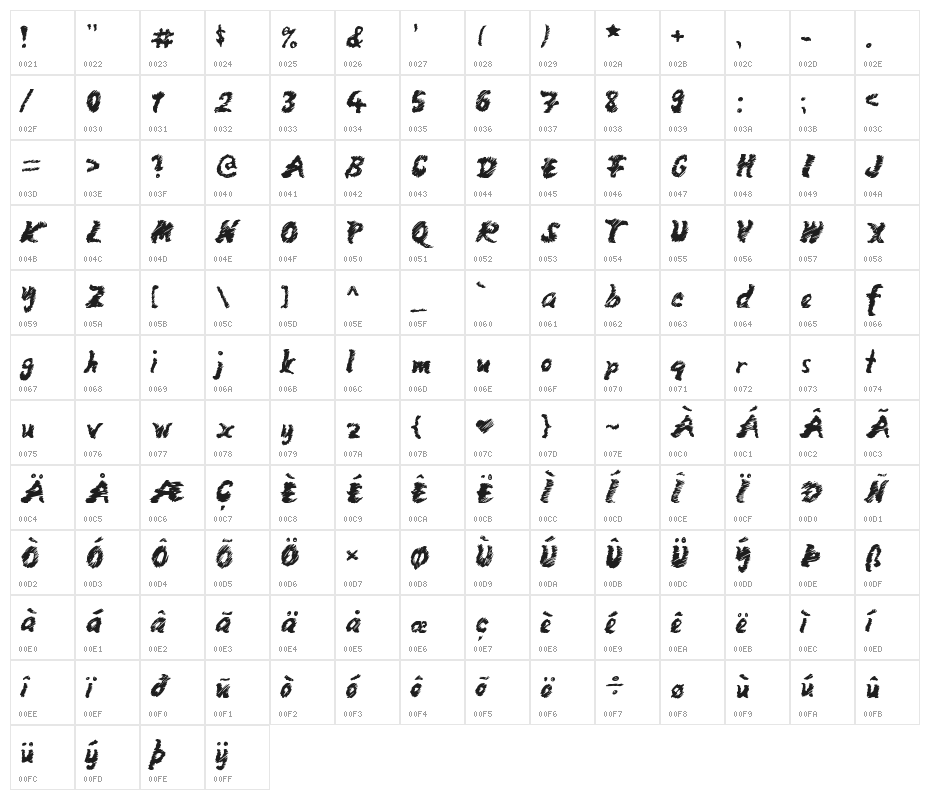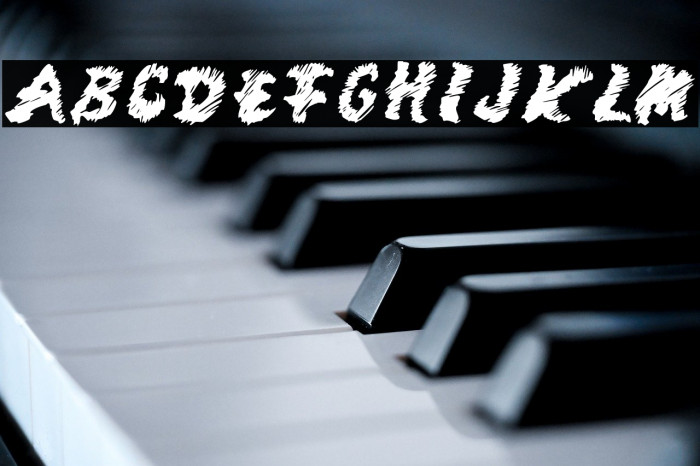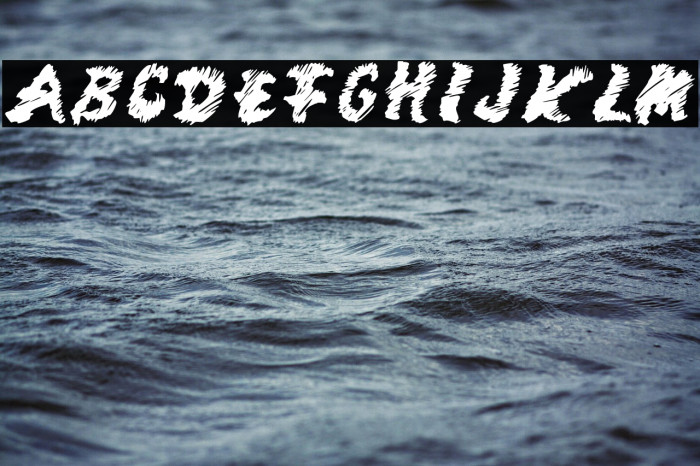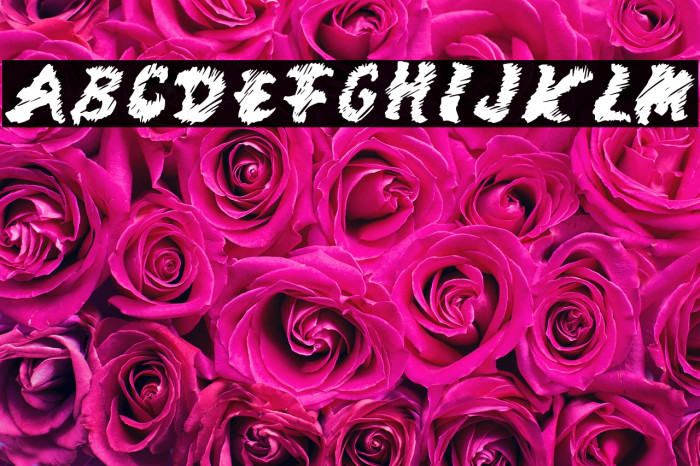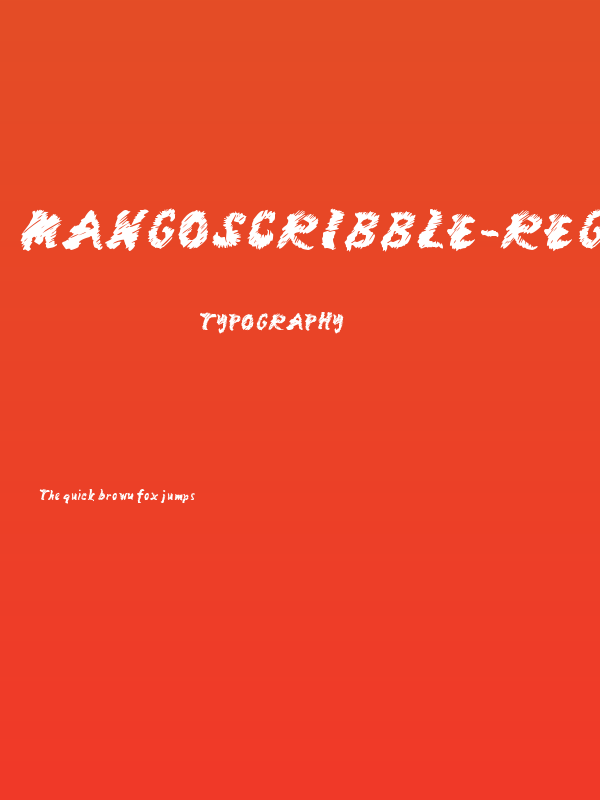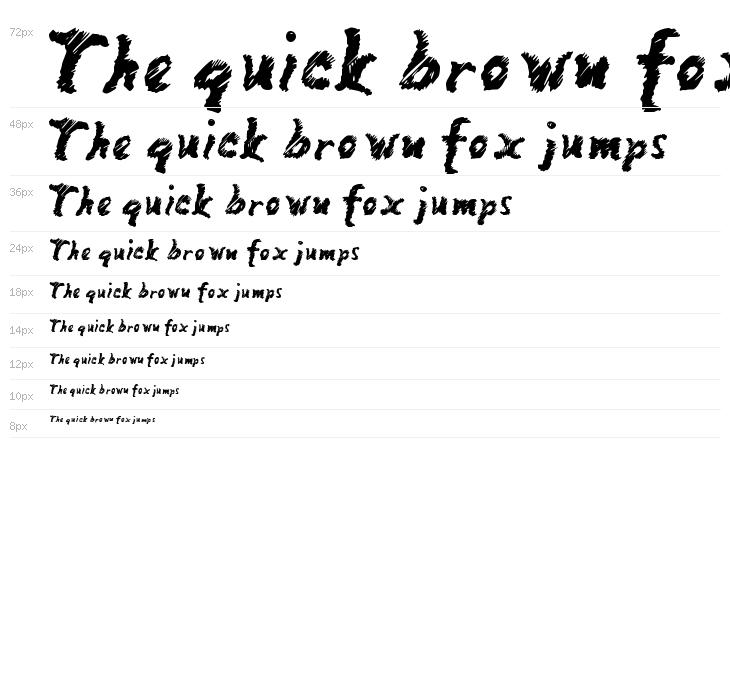
MangoScribble-Regular Font
MangoScribble-Regular Description
This font features a bold and dynamic style with a textured, brush-like appearance. The characters are designed with a rough, jagged edge, giving them a sense of movement and energy. The uppercase and lowercase letters maintain a consistent style, while the numbers and special characters complement the overall aesthetic. The font's unique texture makes it stand out, ideal for projects that require a strong visual impact. Its artistic flair is suitable for creative designs, adding a touch of personality and vibrancy.
| Proposed Projects | Ideal for posters, album covers, branding, and artistic projects that require a bold statement. |